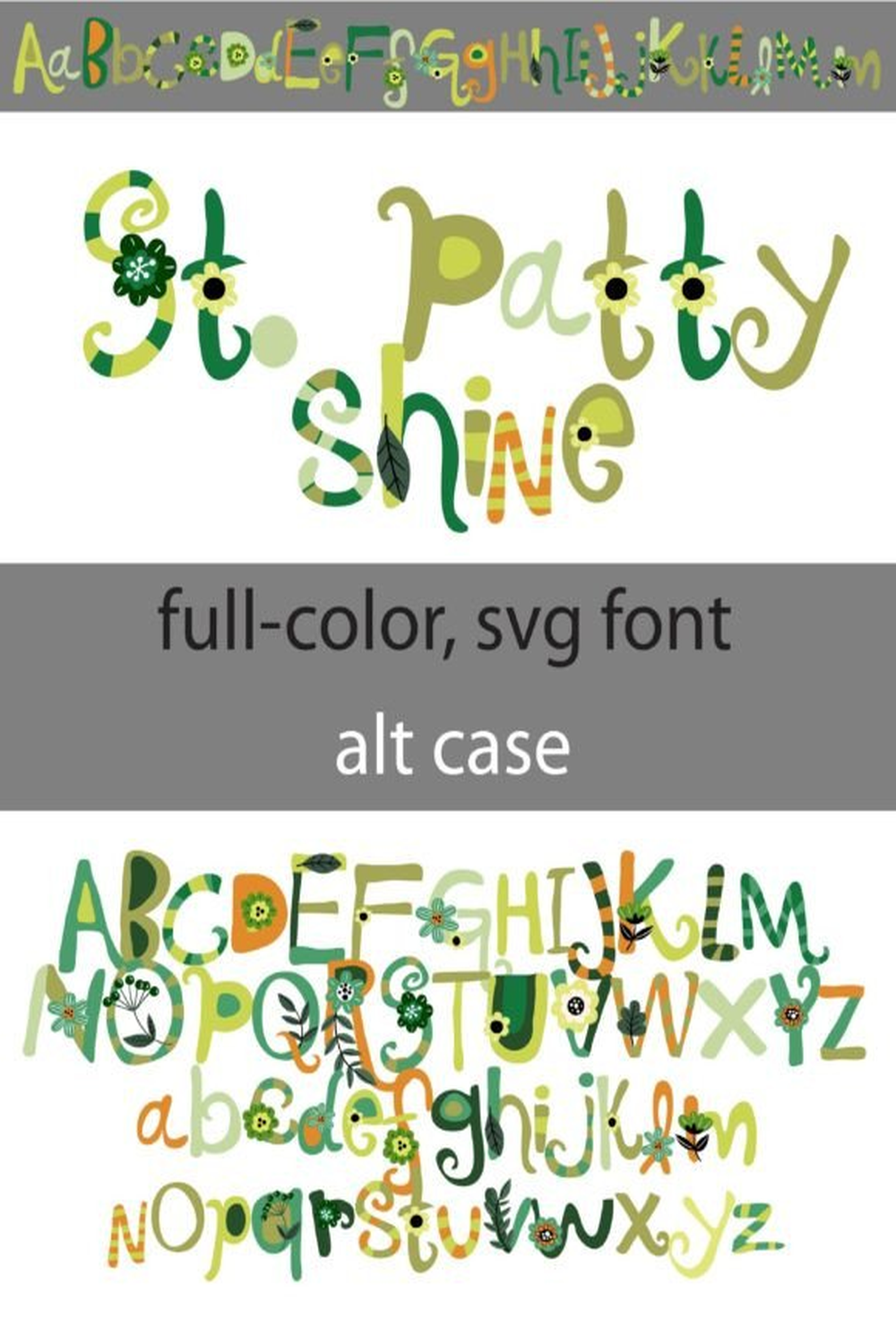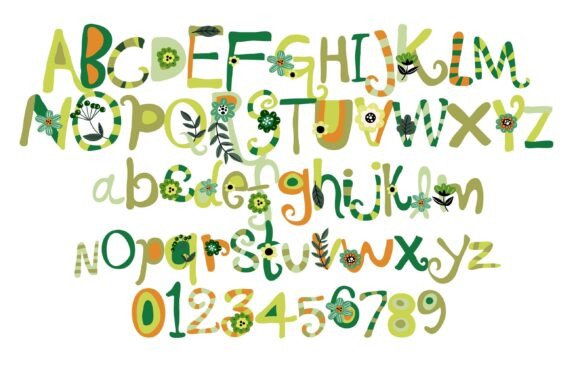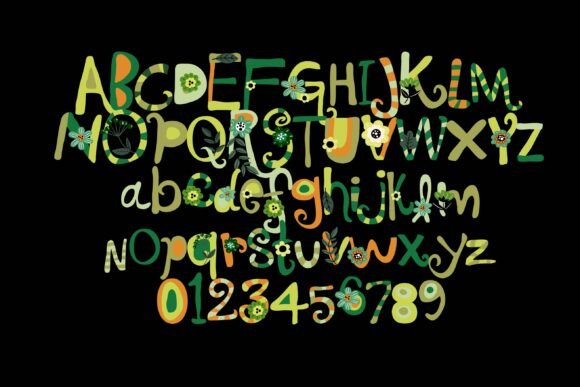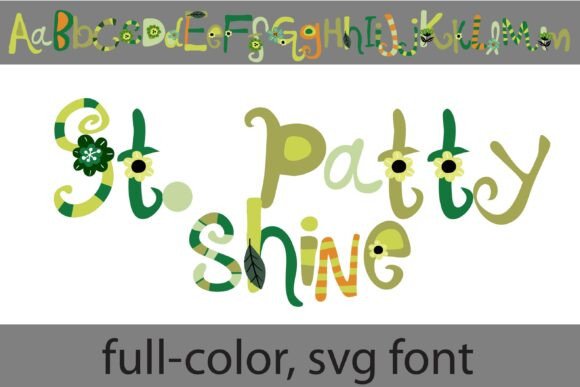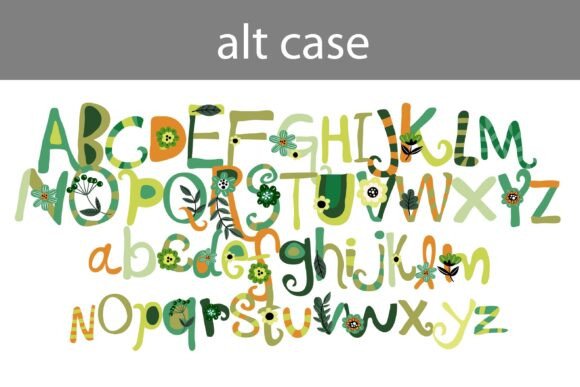
St. Patty Shine Font
About the St. Patty Shine Font
The St. Patty Shine Font offers a perfect balance of form and function for your design needs. This full-color font features a hand-printed font in a green color palette with florals on each letter. There is an alt version you can access through your system’s character map that contains additional colors of all the letters. This font works best for titles, displays, posters and more. Please note color fonts will show as black in non compatible programs.